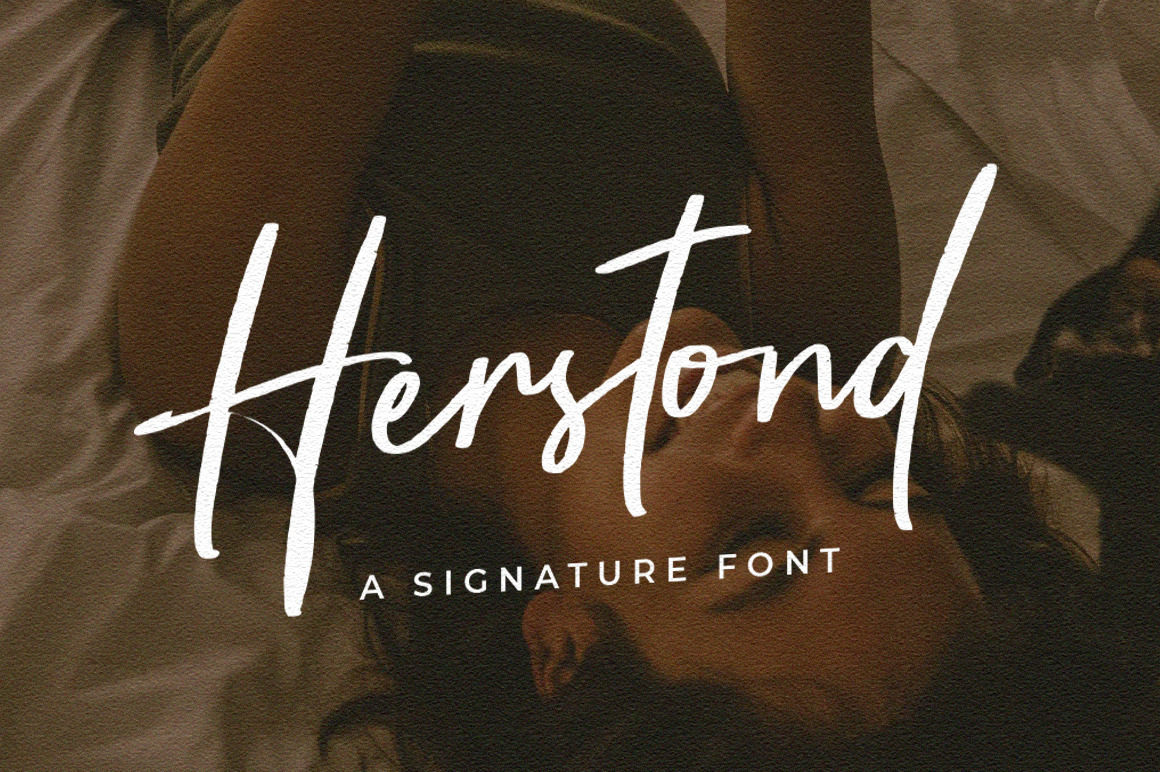
Herstond // Chic Script Font
Herstond is cursive handwritten font, relaxed and timeless. Employ it to each of your creative designs and notice how they come alive!